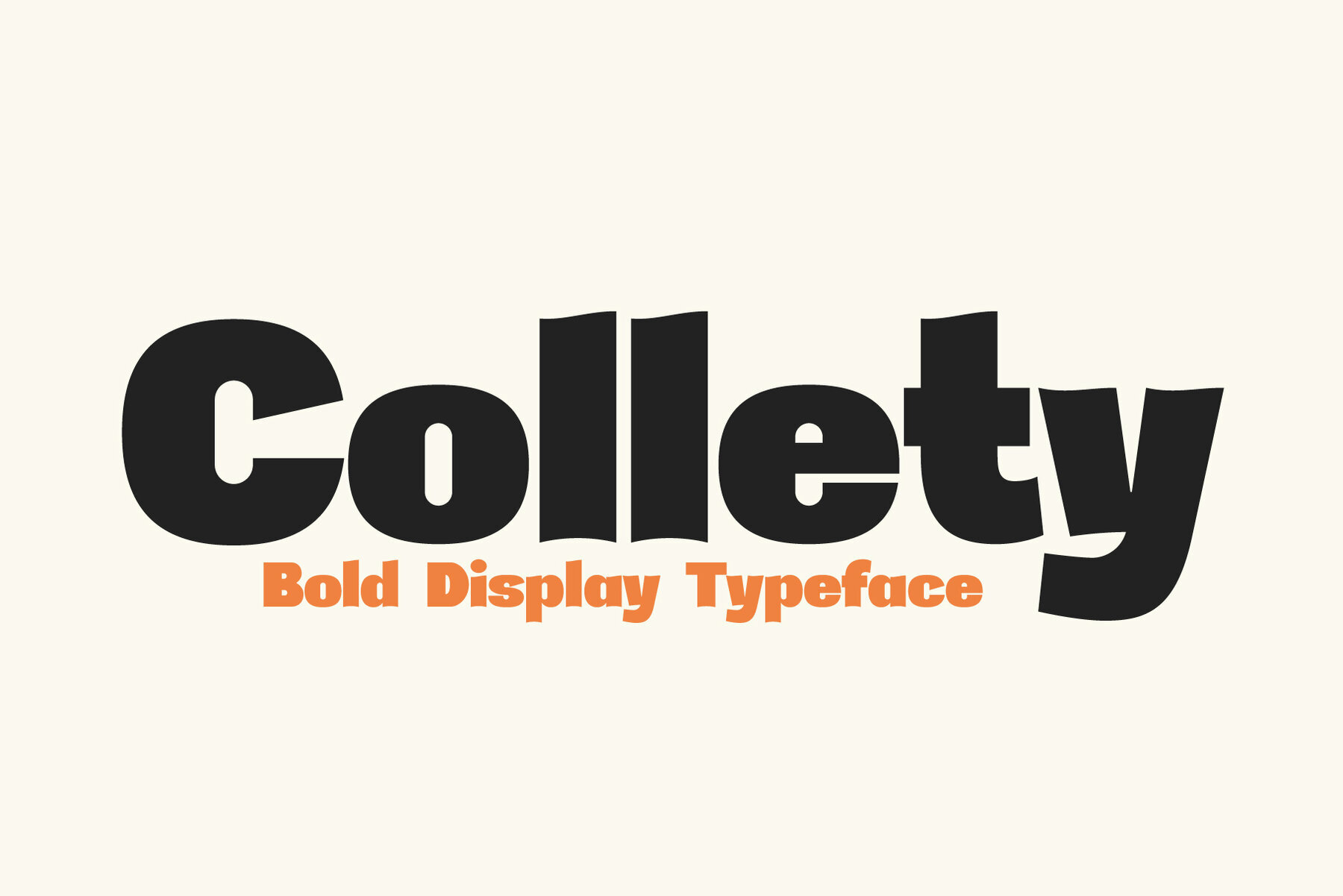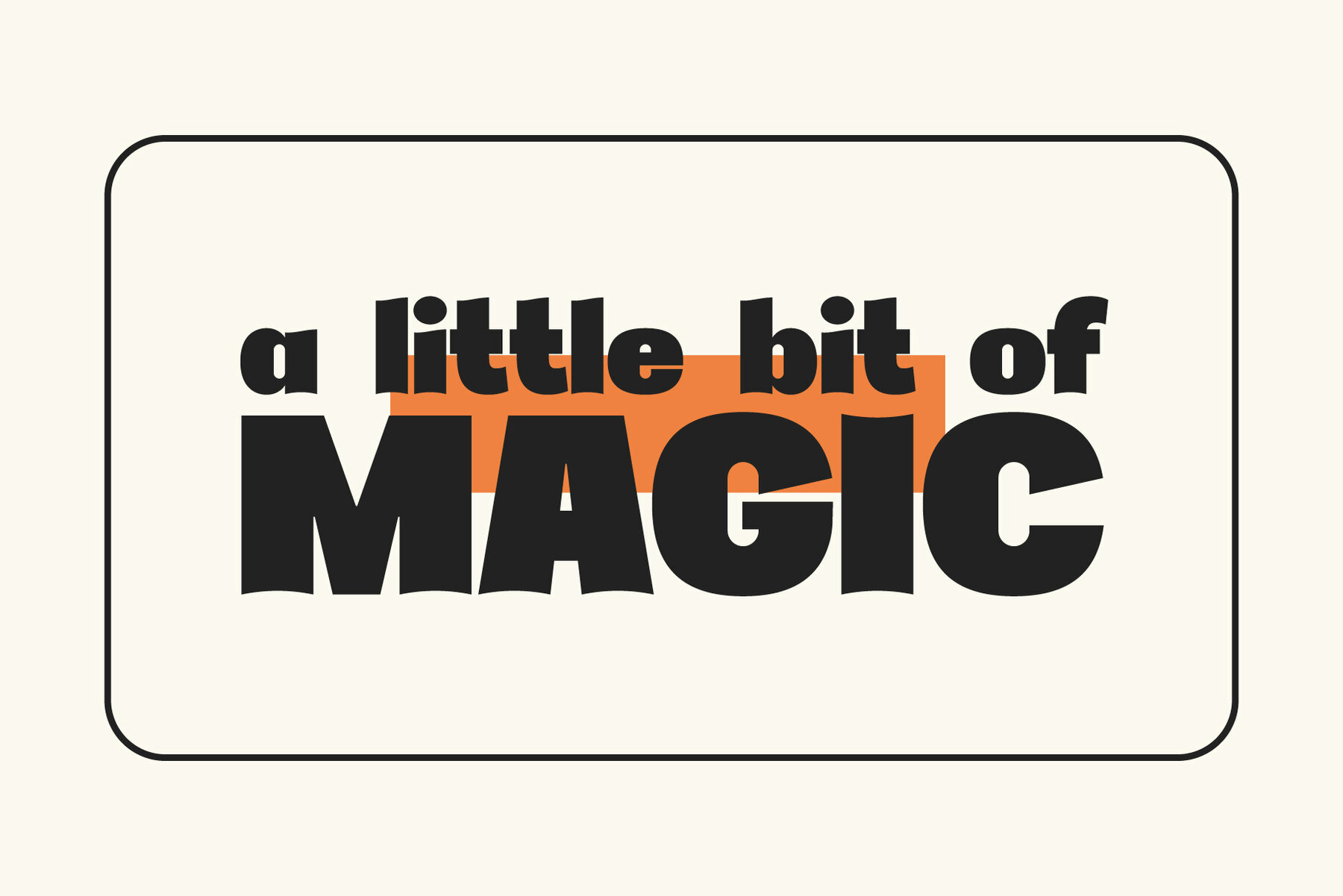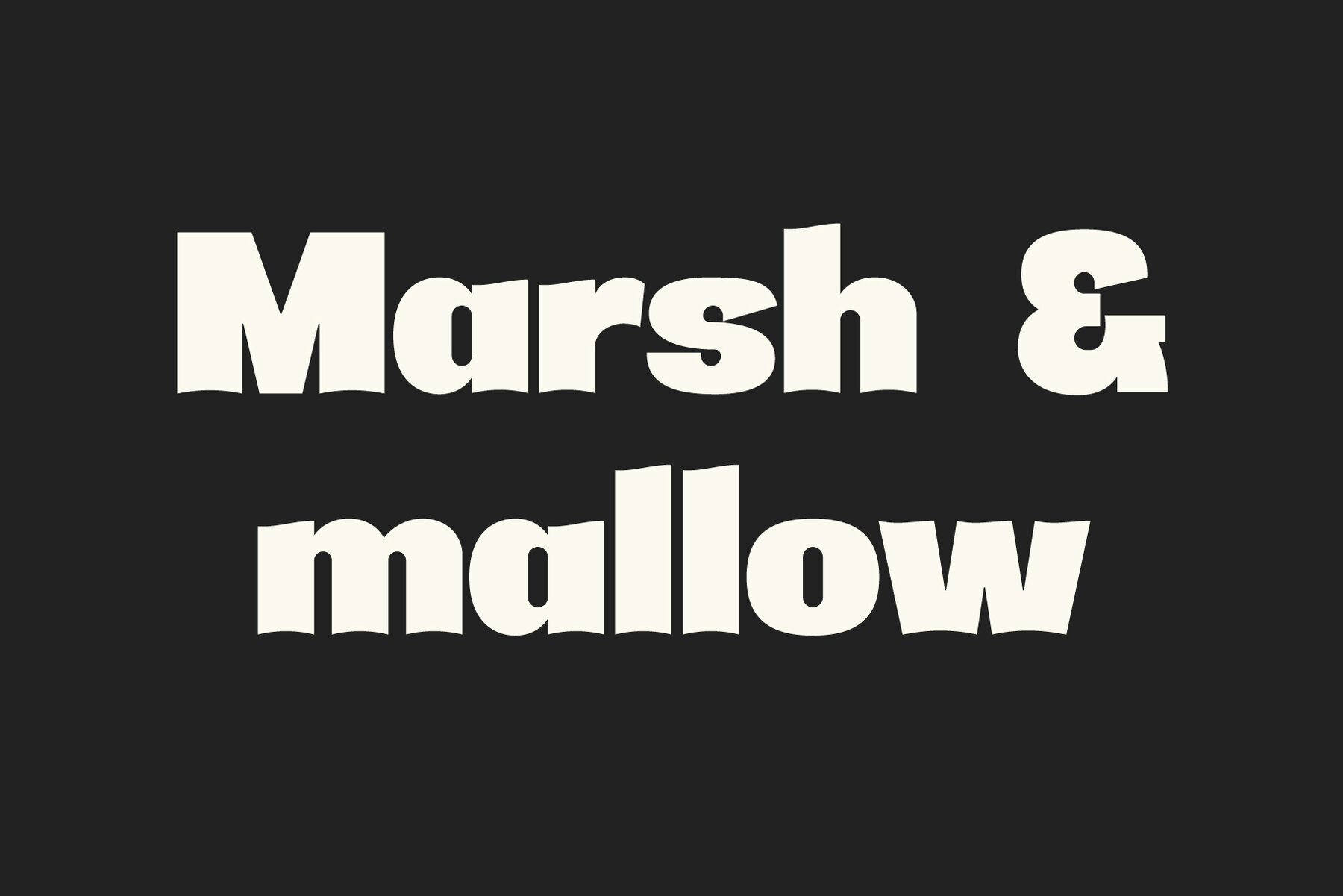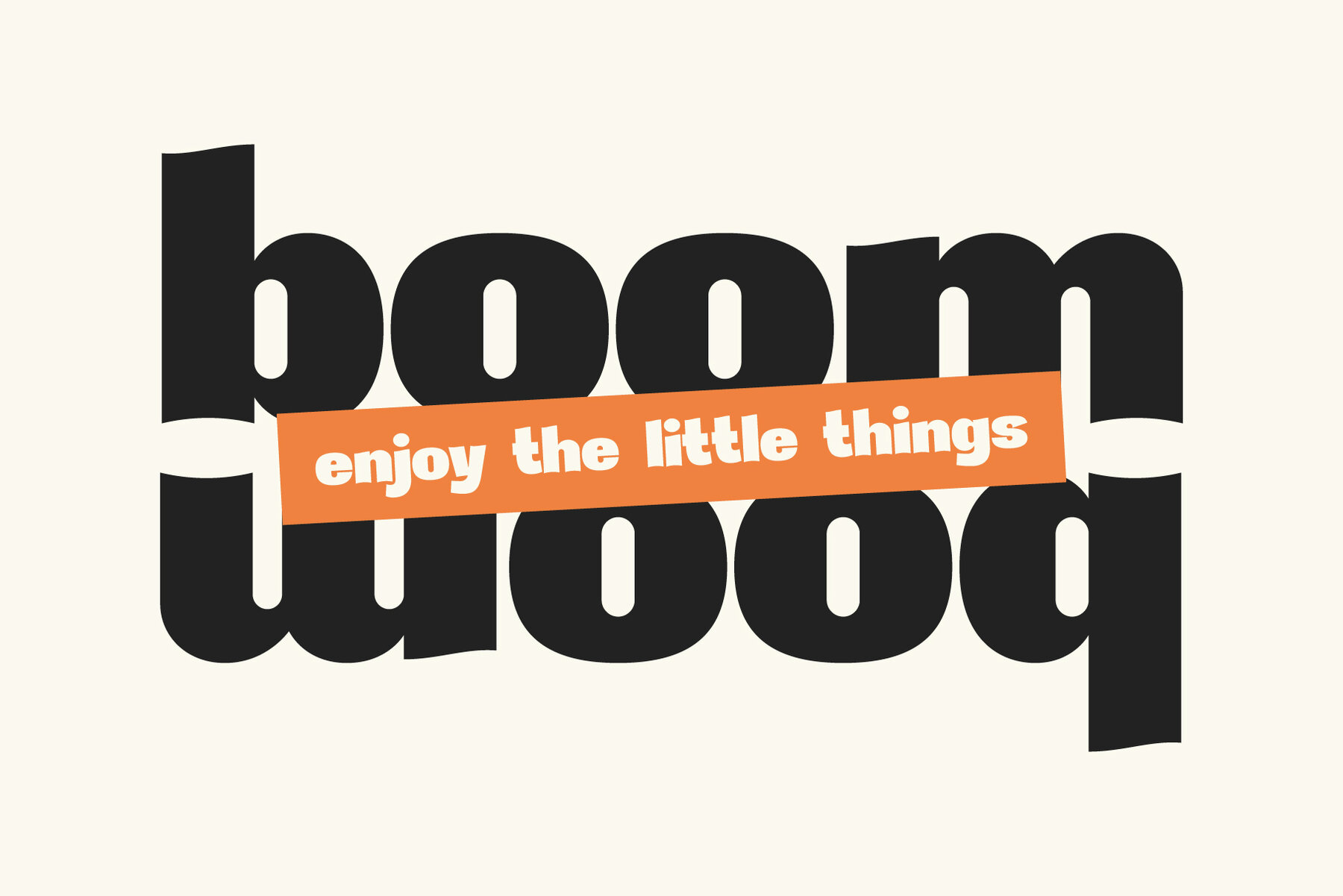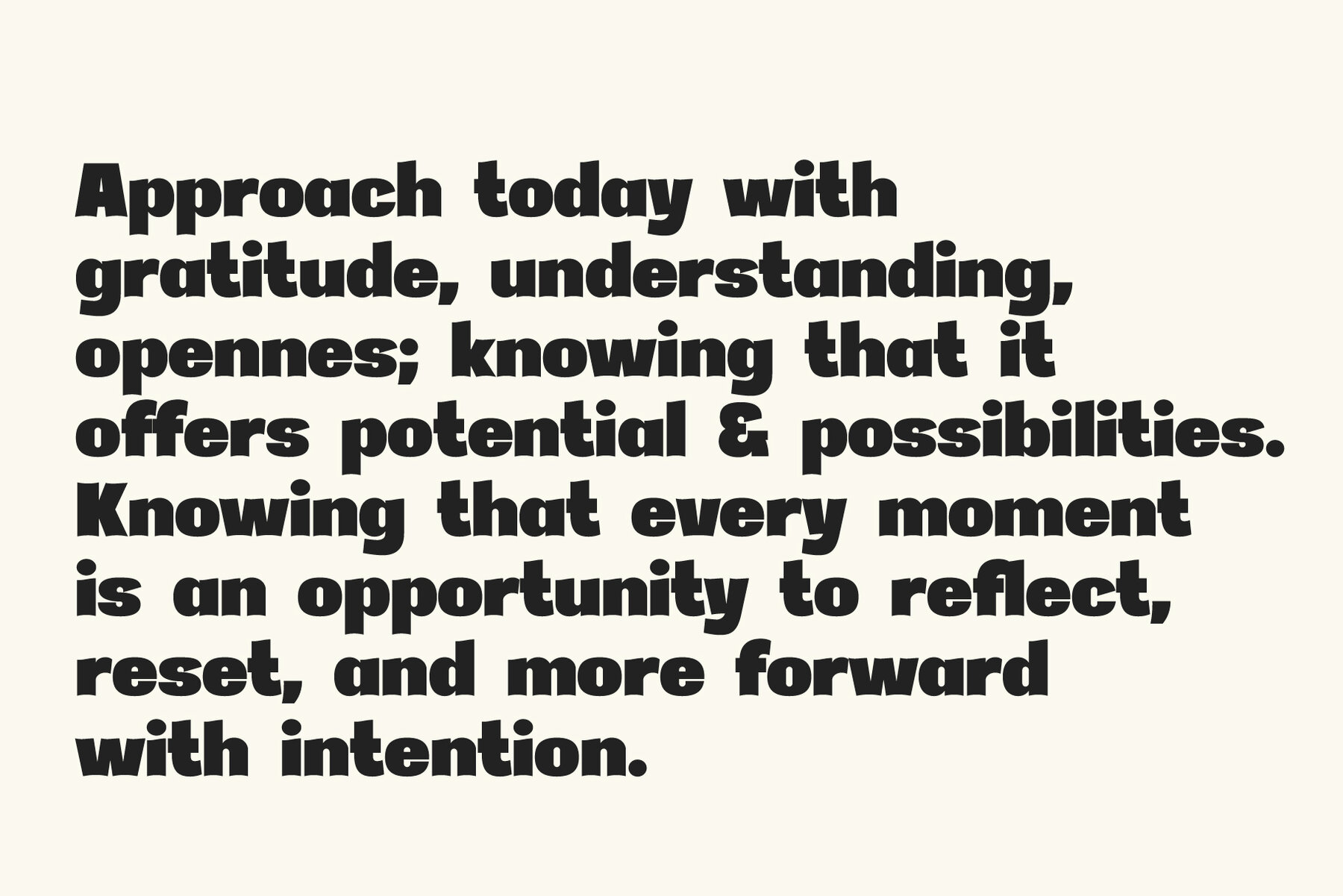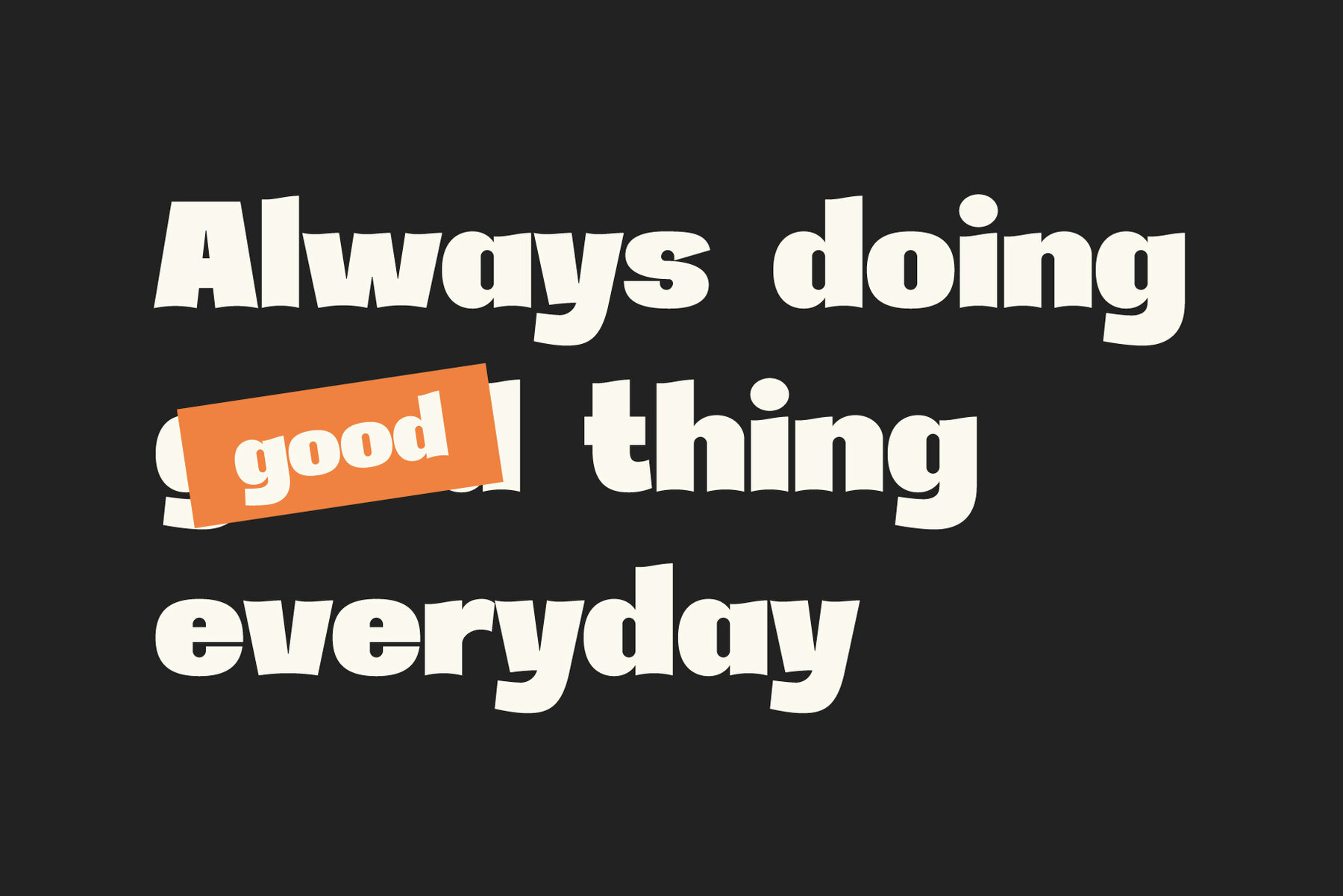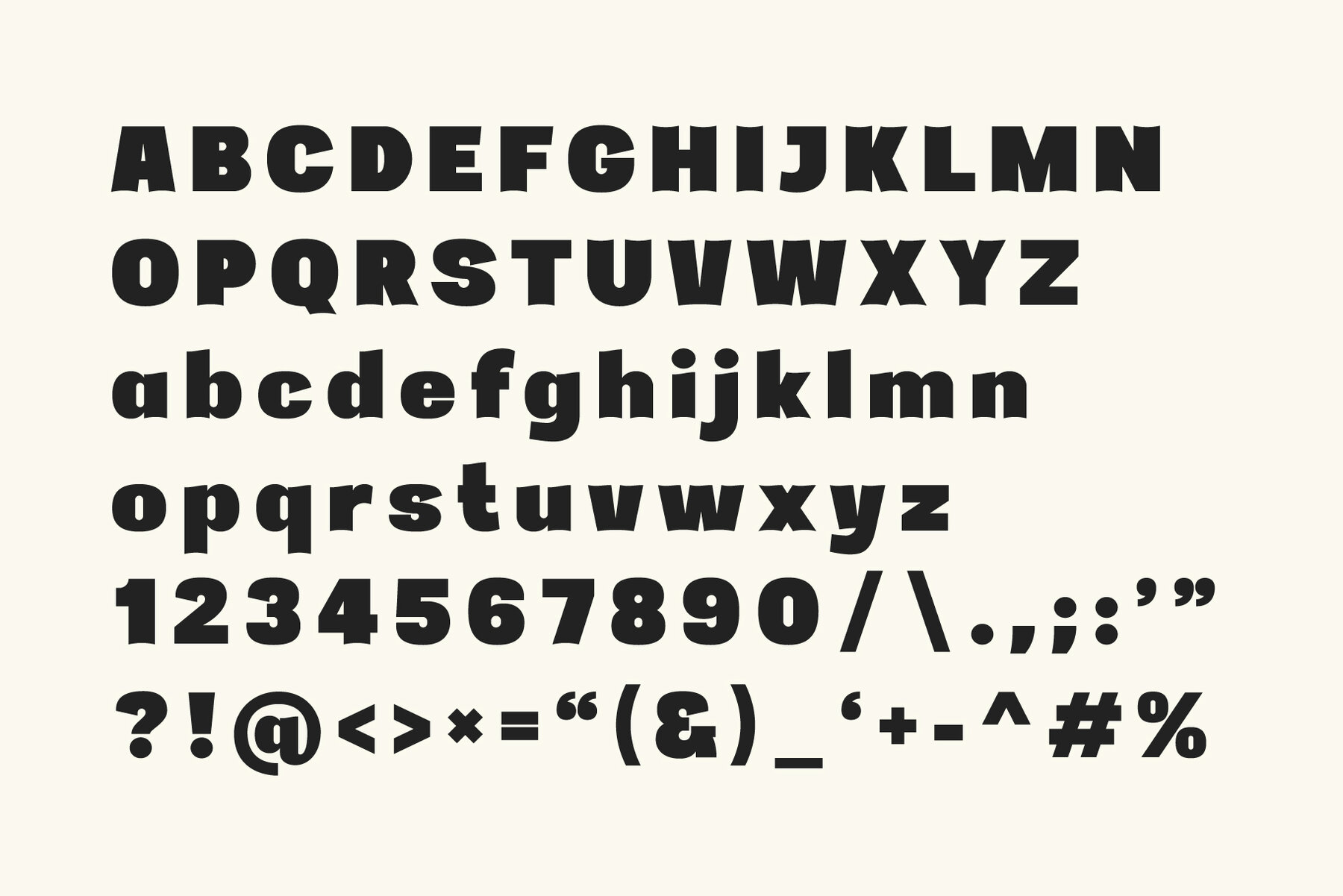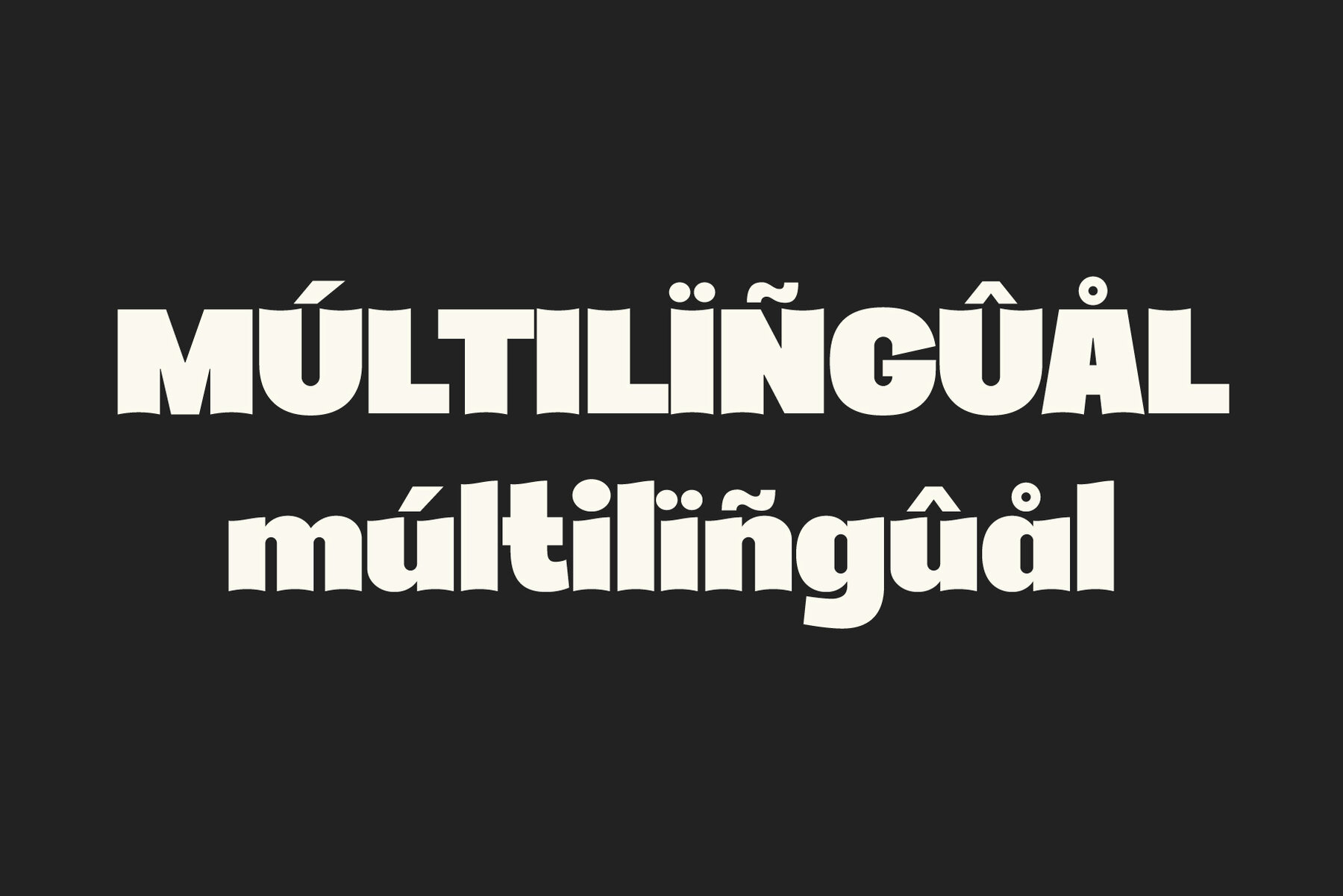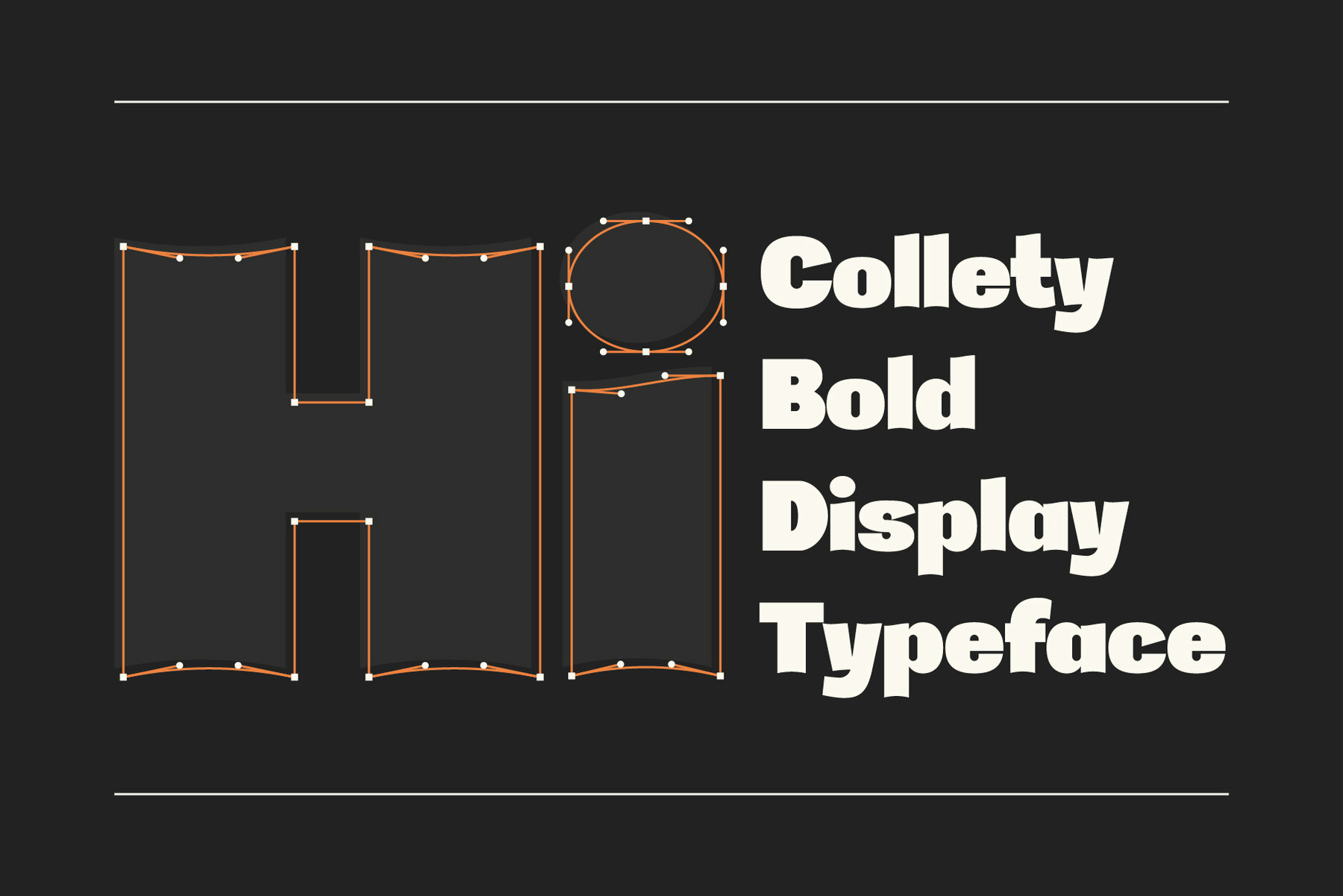
Collety Font
Collety
Inject playful energy into your projects with Collety, a bold display typeface crafted with distinctive modern curves. Its striking letterforms and unique characteristics are meticulously designed to capture attention, making it an ideal choice for posters, logos, packaging, and branding that strive to make a lasting impression. Collety's bold personality and versatile style ensure a fresh and dynamic aesthetic for both print and digital platforms.Collety Typeface: Bold and Modern Display